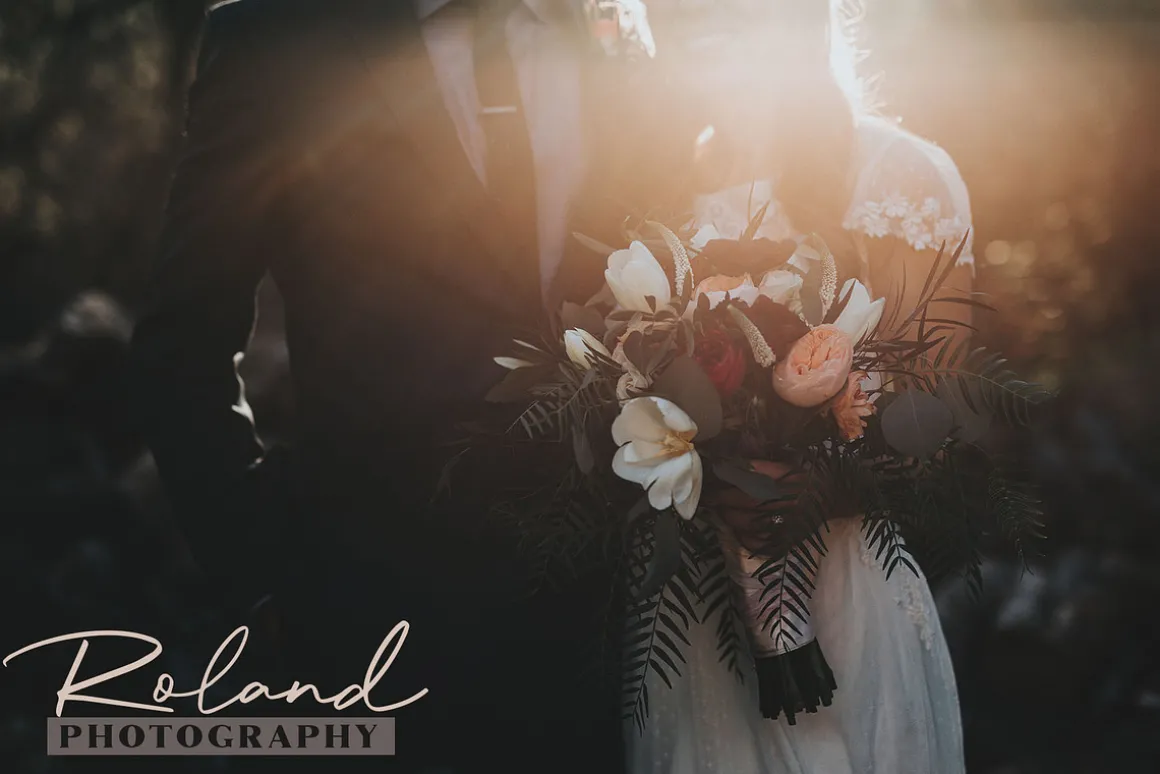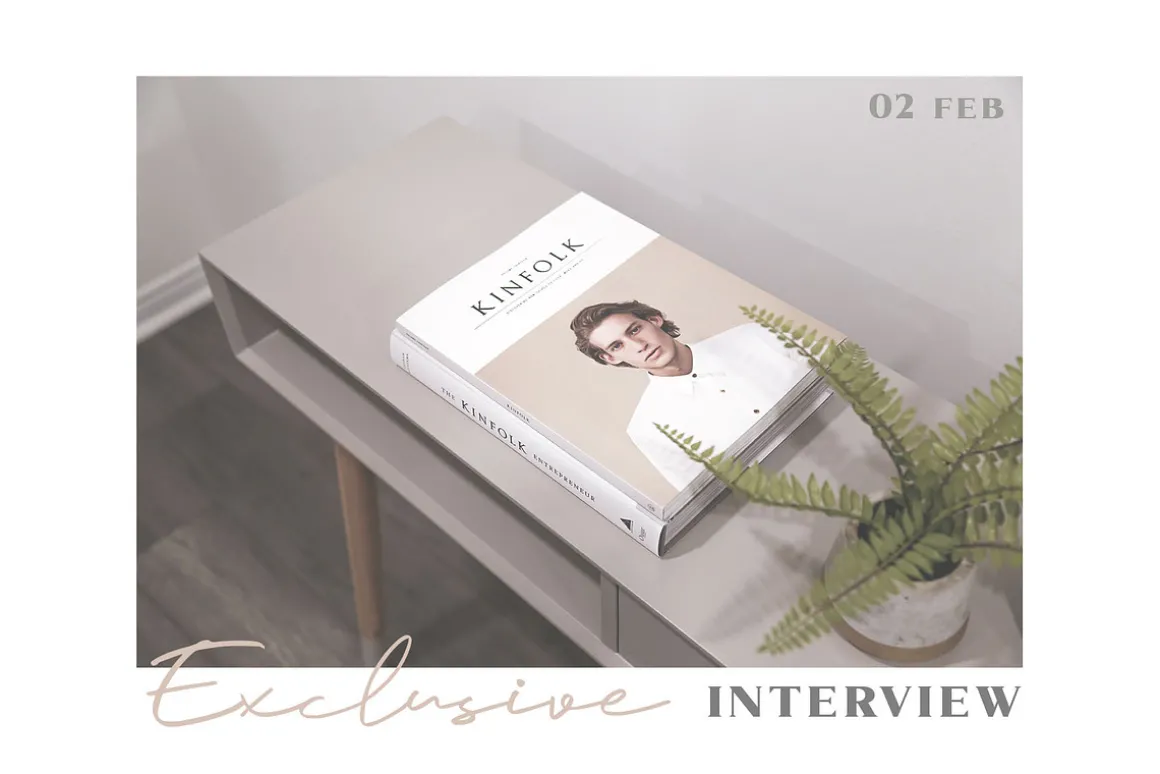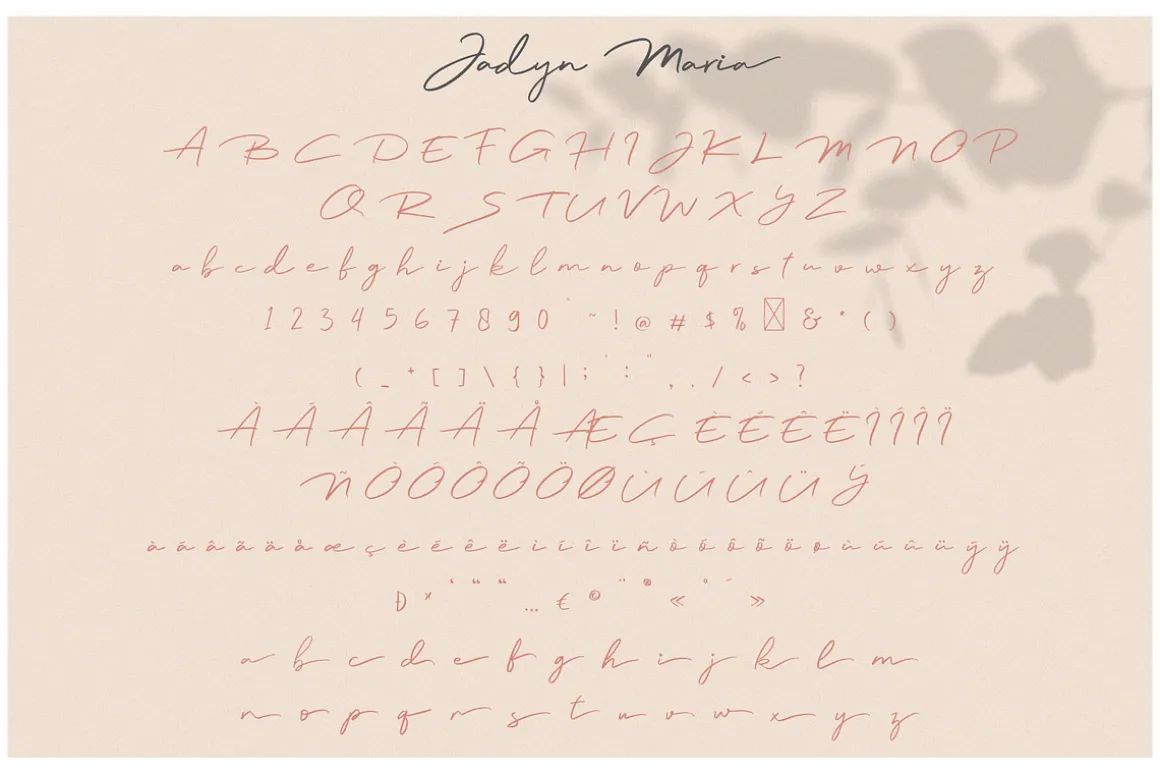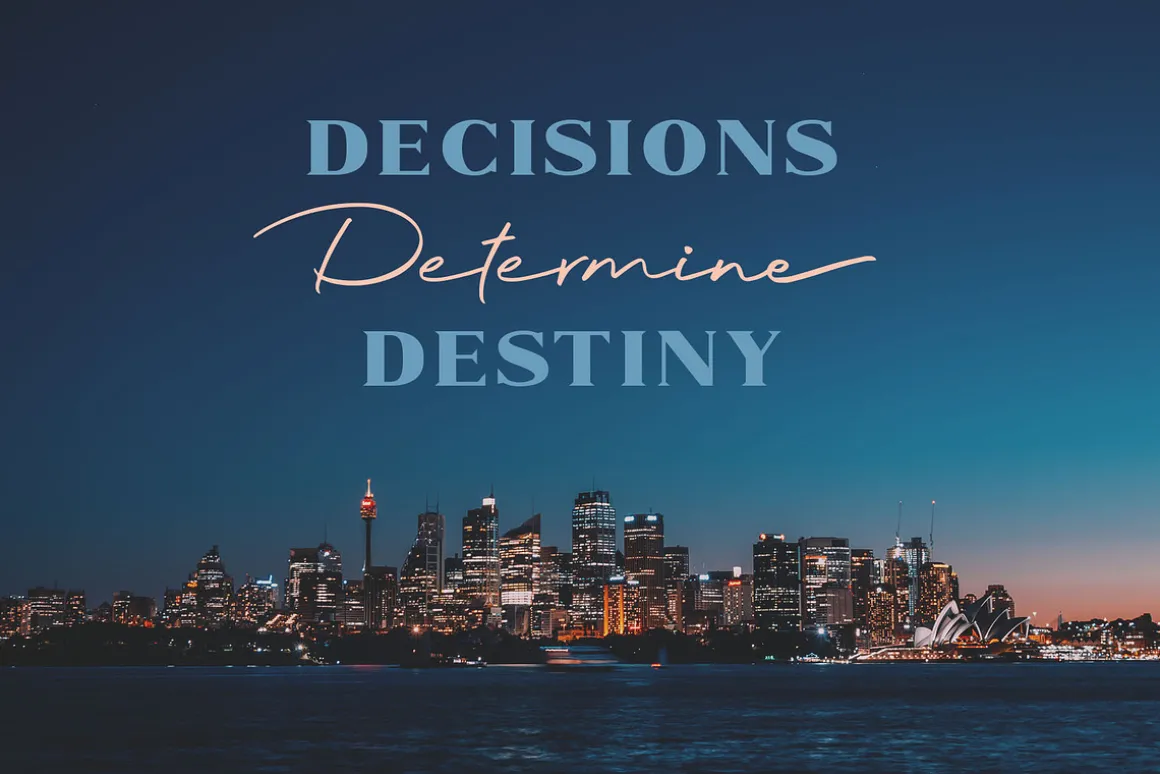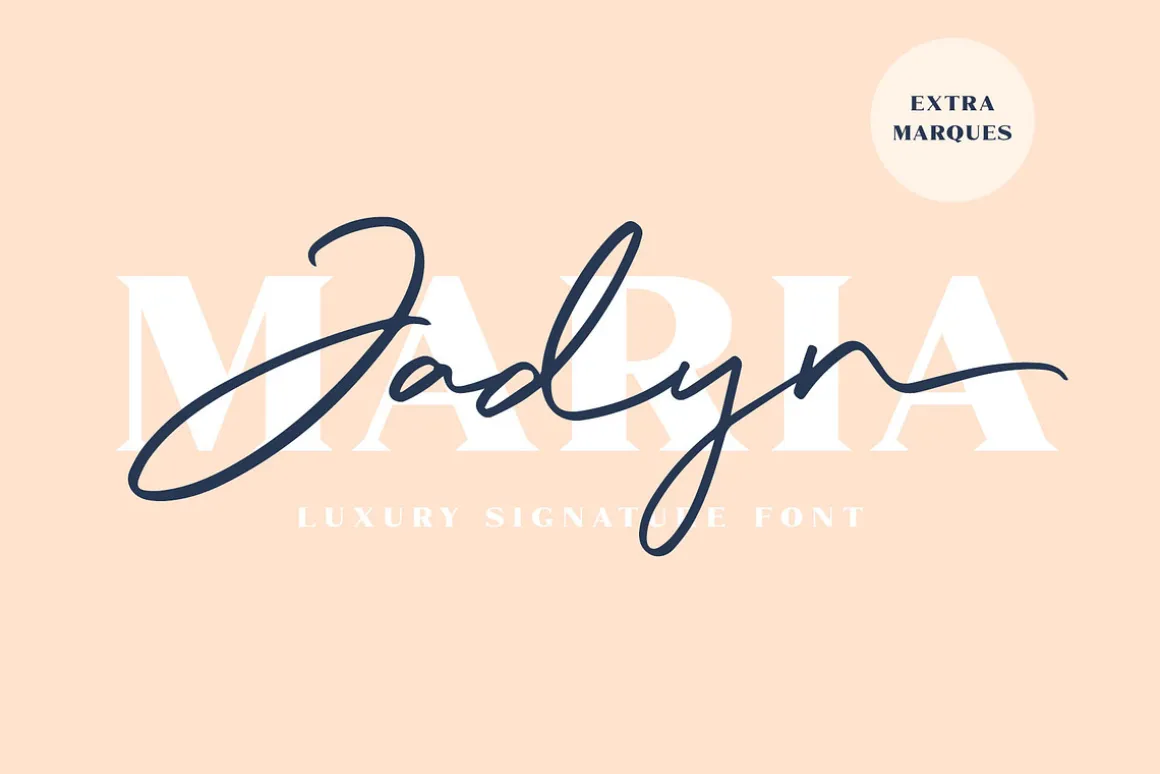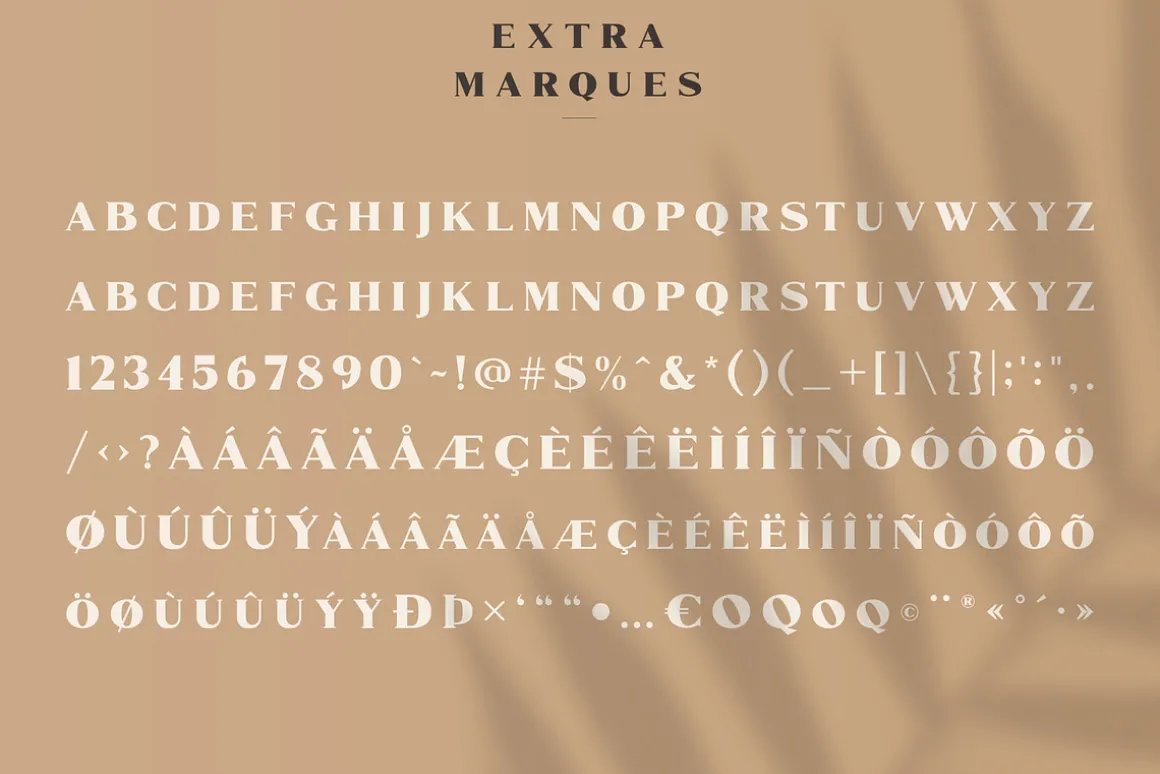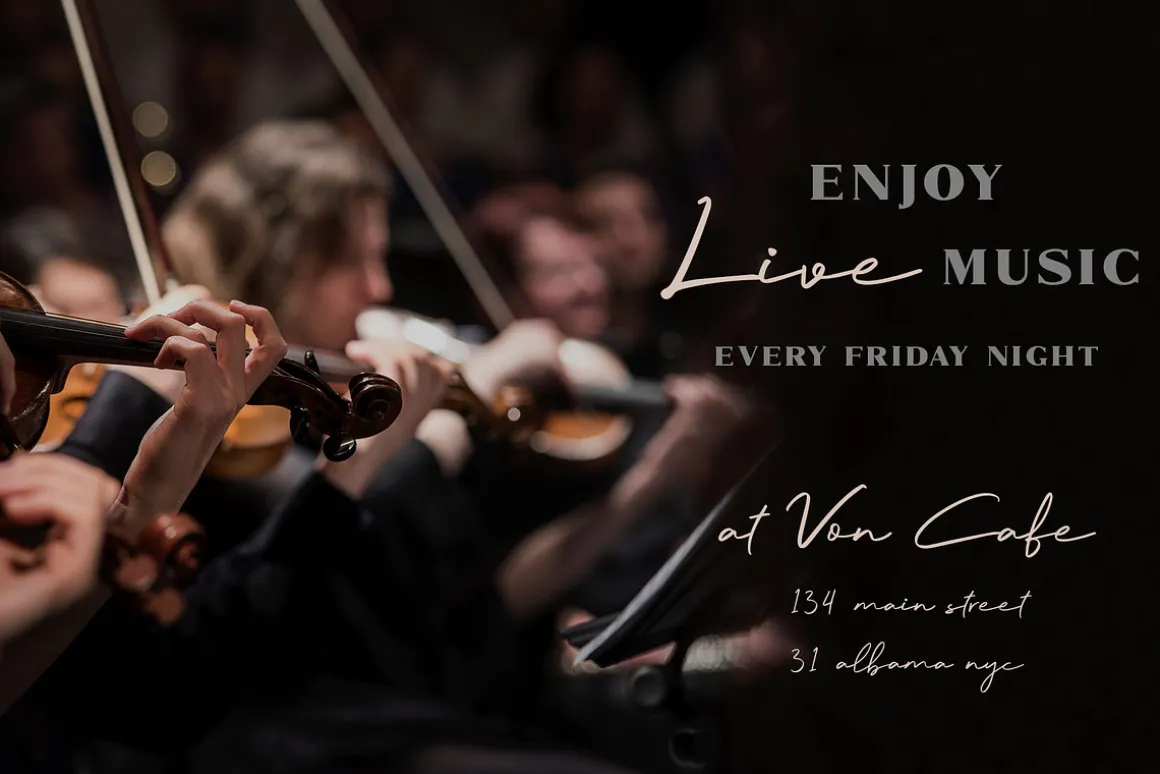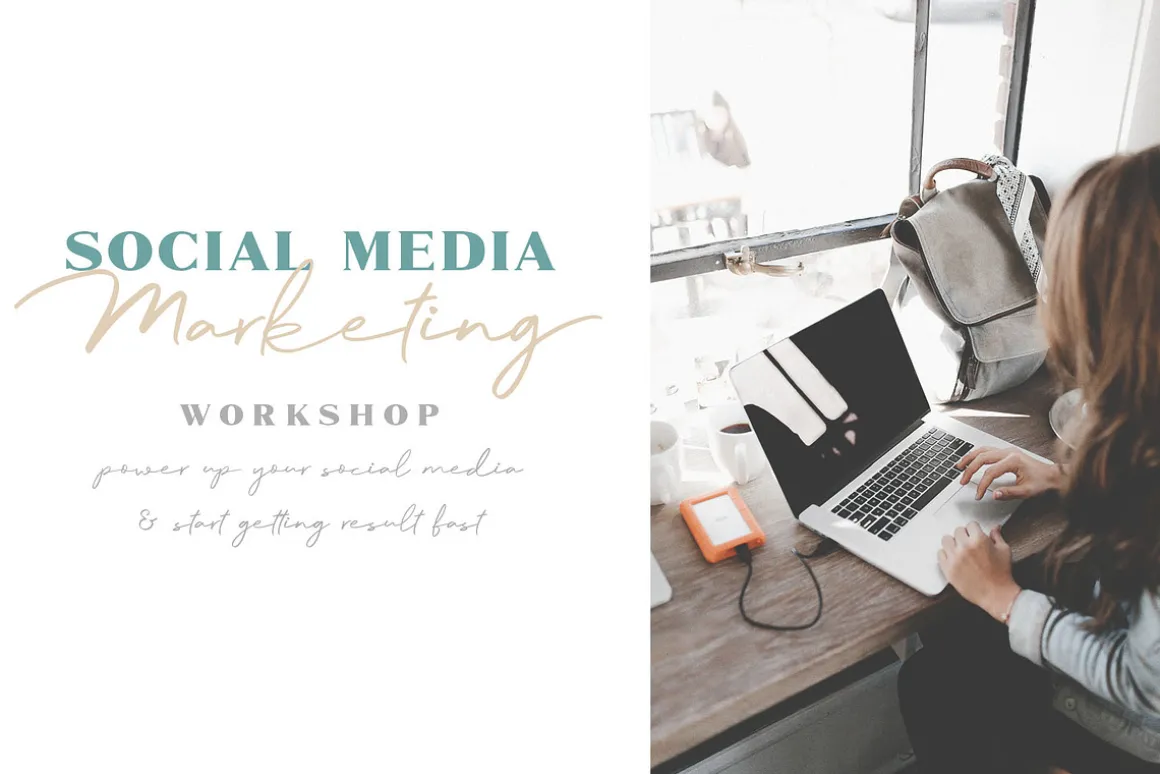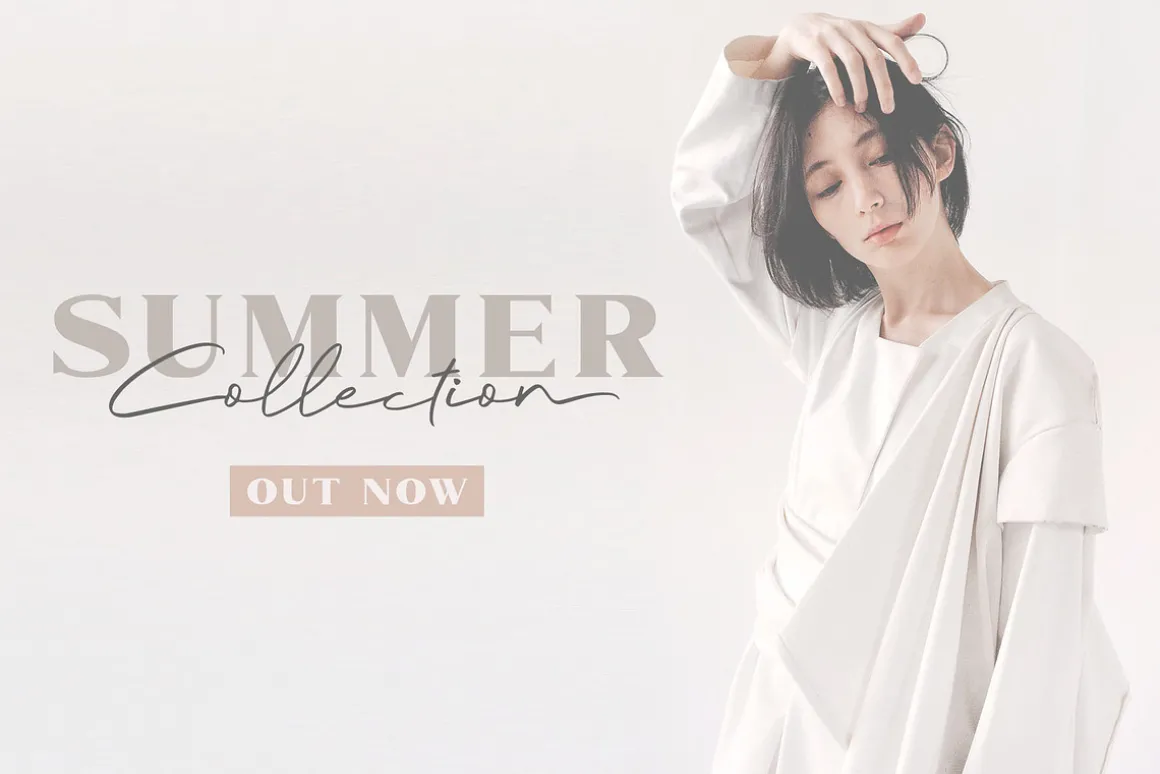
Introducing New Font : Jadyn Maria – Luxury Signature Font + Extra (Marques Font Family
Jadyn Maria – Luxury Signature Font + Extra is an handwritten script font based on the expression of real handwriting. Jadyn Maria – Luxury Signature Font + Extra will work perfectly for fashion, e-commerce brands, trend blogs, wedding boutiques or any business that wants to appear upscale and chic.
Jadyn Maria – Luxury Signature Font + Extra also Suitable for Logo, greeting cards, quotes, posters, branding, name card, stationary, design title, blog header, art quote, typography, art, modern envelope lettering or book design, happening style like handdrawn design or watercolor design theme, craft design, any DIY project, book title, or any purpose to make your art/design project look pretty and trendy.
- Uppercase & Lowercase
- Stylistic Alternates
- Standard Ligatures
- Numerals & Punctuations (OpenType Standard)
- Accents/Multilingual characters (AÀÁÂÃÄÅCÇDÐEÈÉÊËIÌÍÎÏNÑOØÒÓÔÕÖUÙÜÚÛWYÝŸỲŸÆŒßÞ)